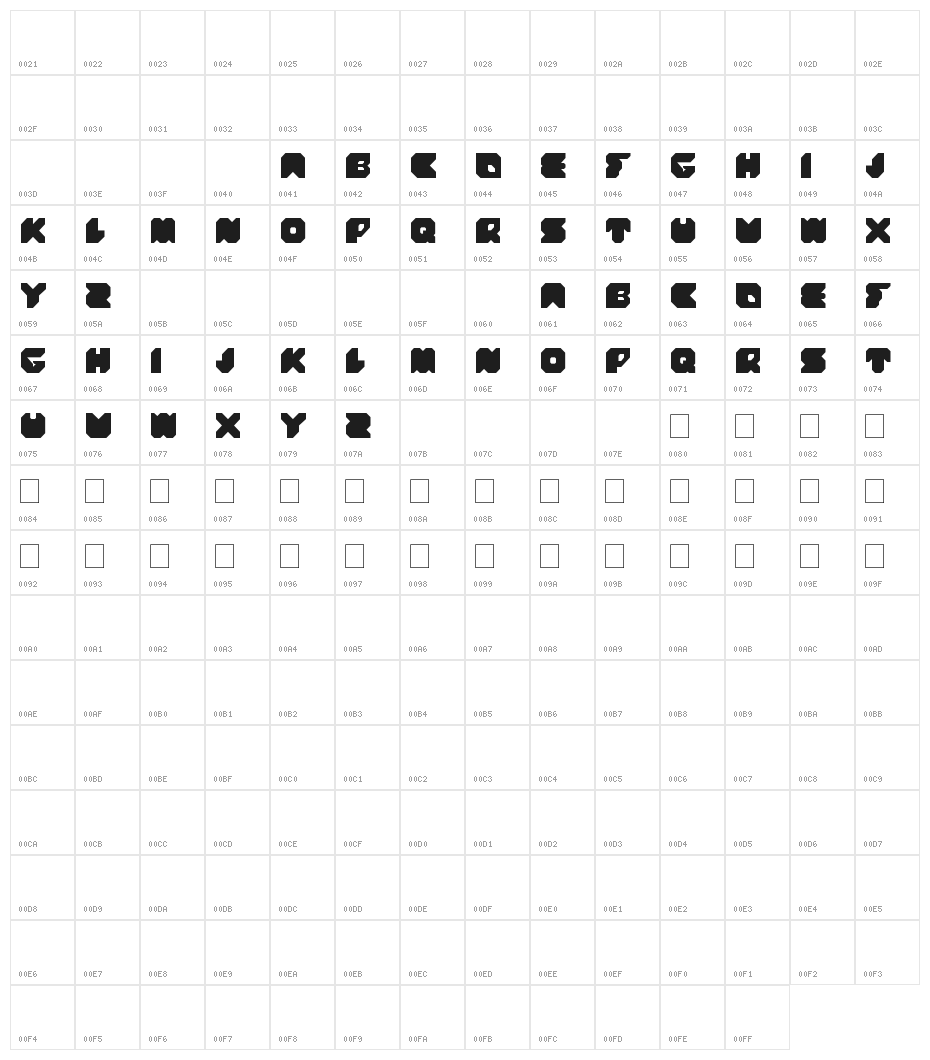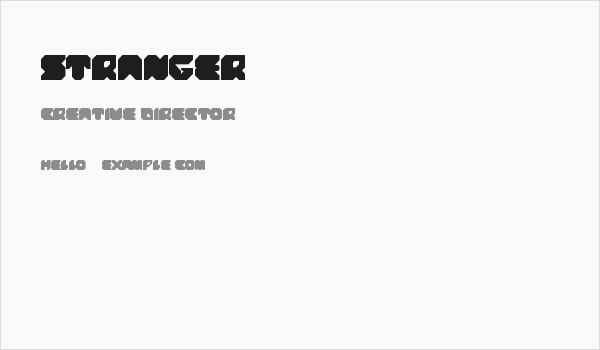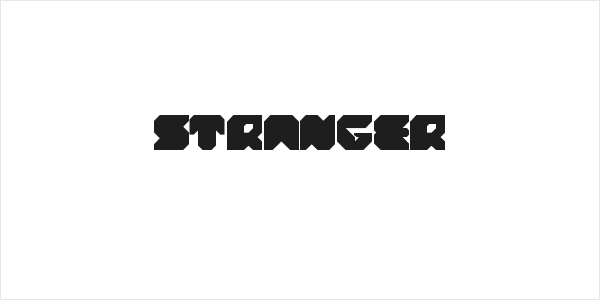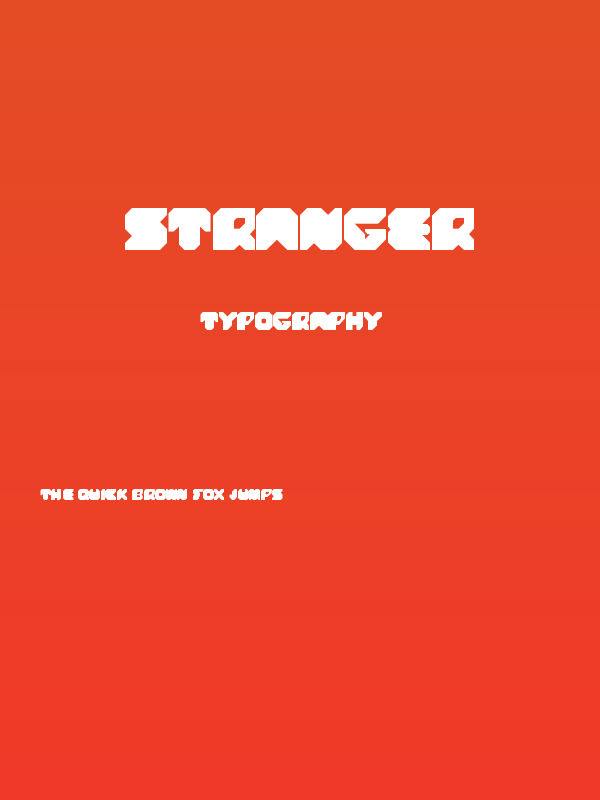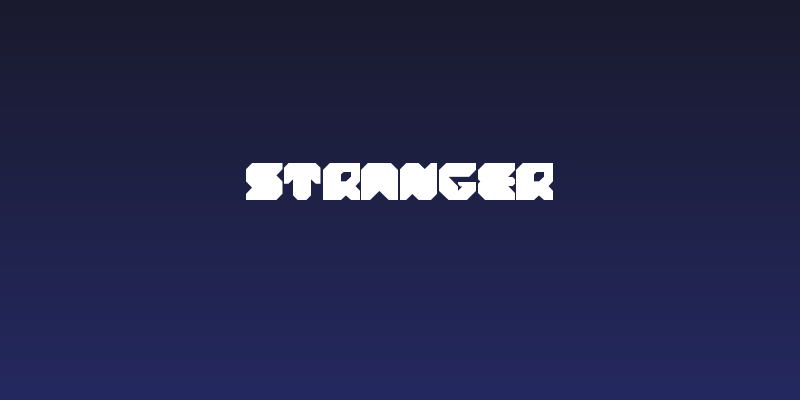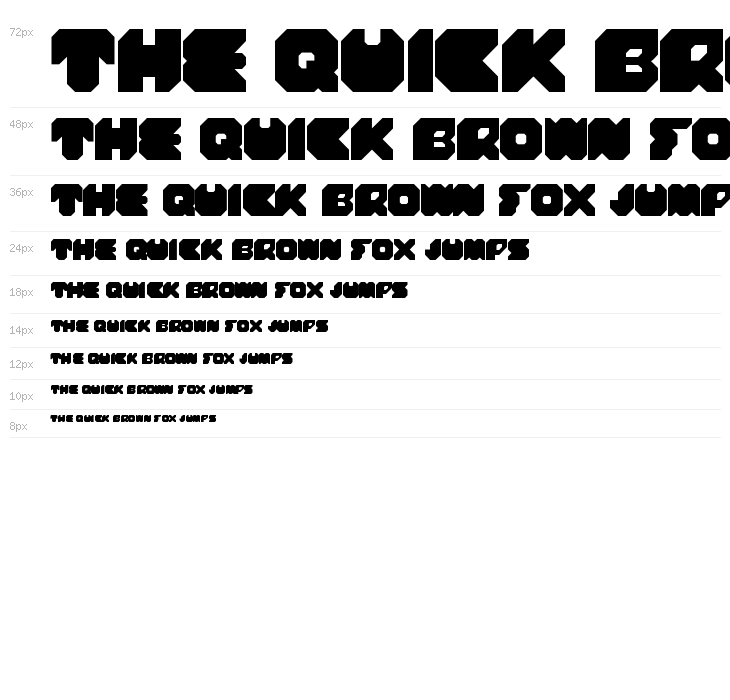
stranger Font
stranger Description
This font features a bold, geometric design with sharp angles and a blocky appearance. The characters are constructed with solid, thick lines that create a strong visual impact. The style is reminiscent of futuristic or sci-fi themes, with a distinct emphasis on angular shapes and a uniform thickness throughout. The uppercase letters are particularly striking, with a consistent height and width that contribute to a cohesive look. The overall aesthetic is modern and assertive, making it suitable for attention-grabbing headlines or logos.
Proposed ProjectsIdeal for sci-fi themed posters, video game titles, or branding for tech companies.